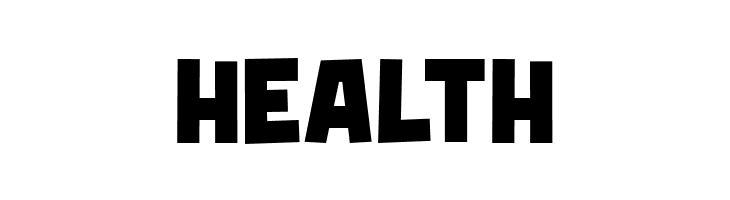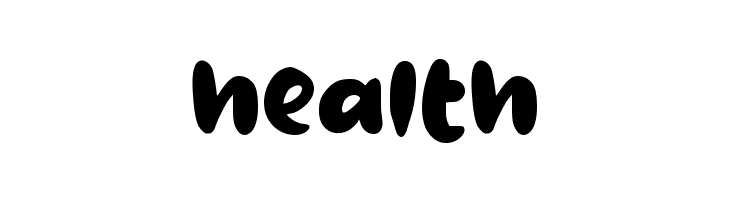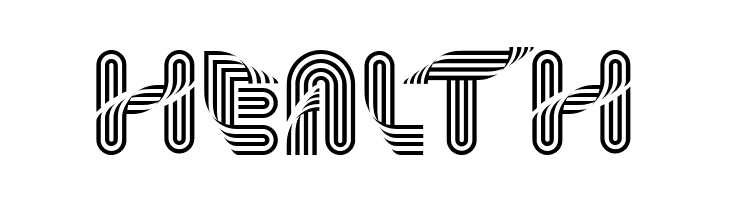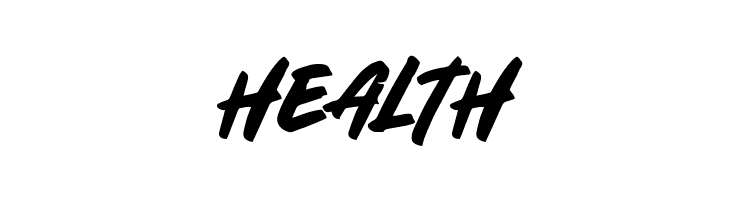
A bold, energetic script font with a handwritten feel.
A bold, retro-inspired font with rounded, bubble-like characters.
A bold, hand-drawn font with a playful and energetic style.
A playful and dynamic handwritten font with fluid strokes and a casual style.
A bold, distressed font with jagged edges and a hand-drawn style.
A bold, playful font with a modern and dynamic style.
A bold, hand-painted style font with a textured, expressive appearance.
A bold, striped display font with a modern and dynamic style.
A flowing, cursive font with elegant, sweeping strokes and a sophisticated appearance.
A bold, rounded font with a playful and whimsical style.